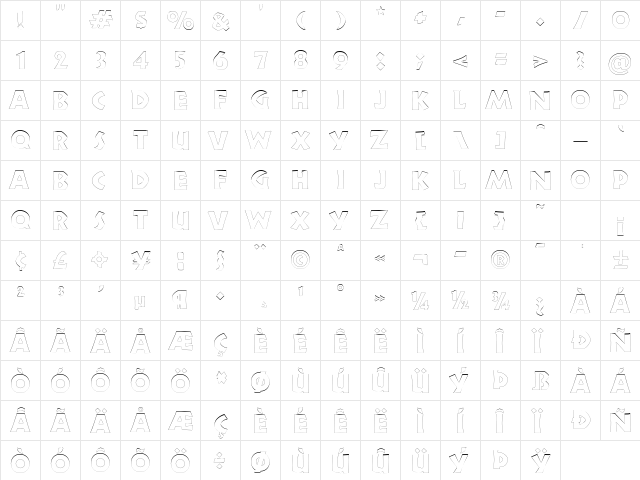
ZorbaOutline Regular
Design Context for ZorbaOutline Typeface
ZorbaOutline is built around its visual character rather than neutral utility — its distinctive forms are designed to make an impression at display sizes.
Font Pairing: Pair with a clean neutral sans-serif for body copy to let ZorbaOutline's character lead without overwhelming the composition.
Pro Tip: Treat ZorbaOutline as the centrepiece of your typographic hierarchy. One strong heading set in a decorative face can carry an entire layout.